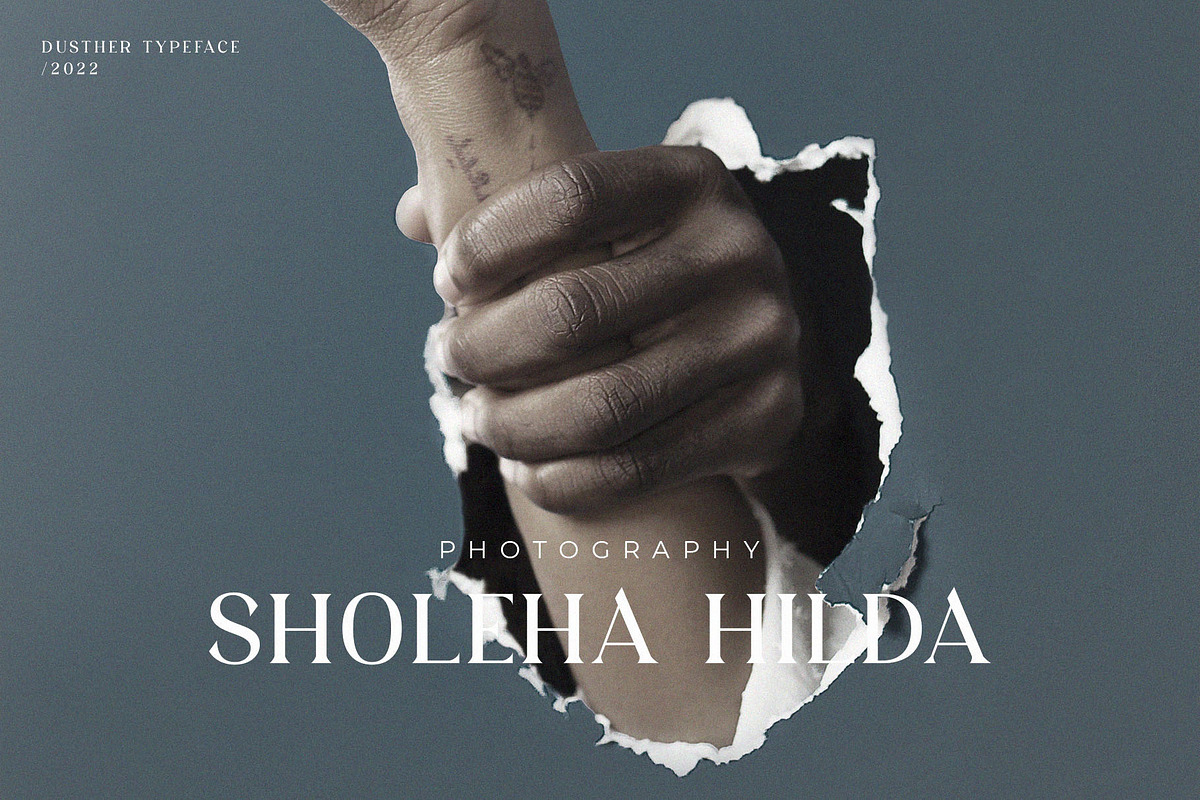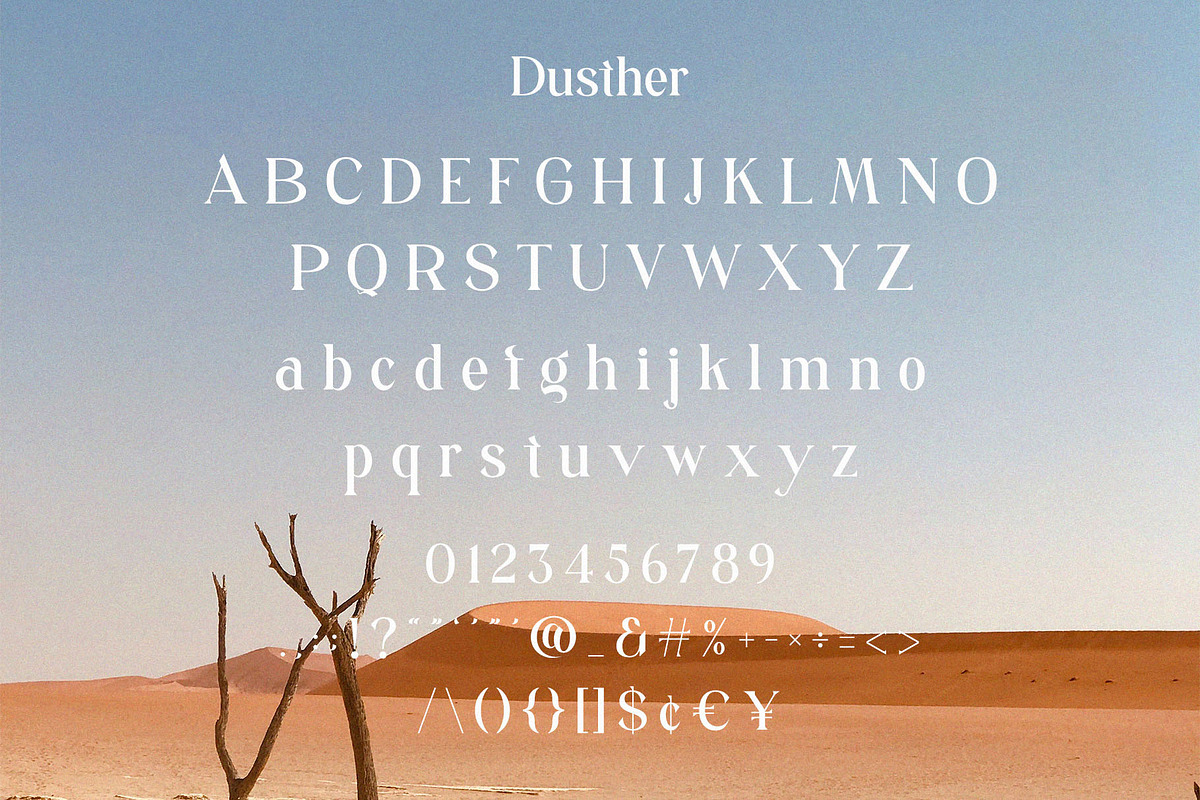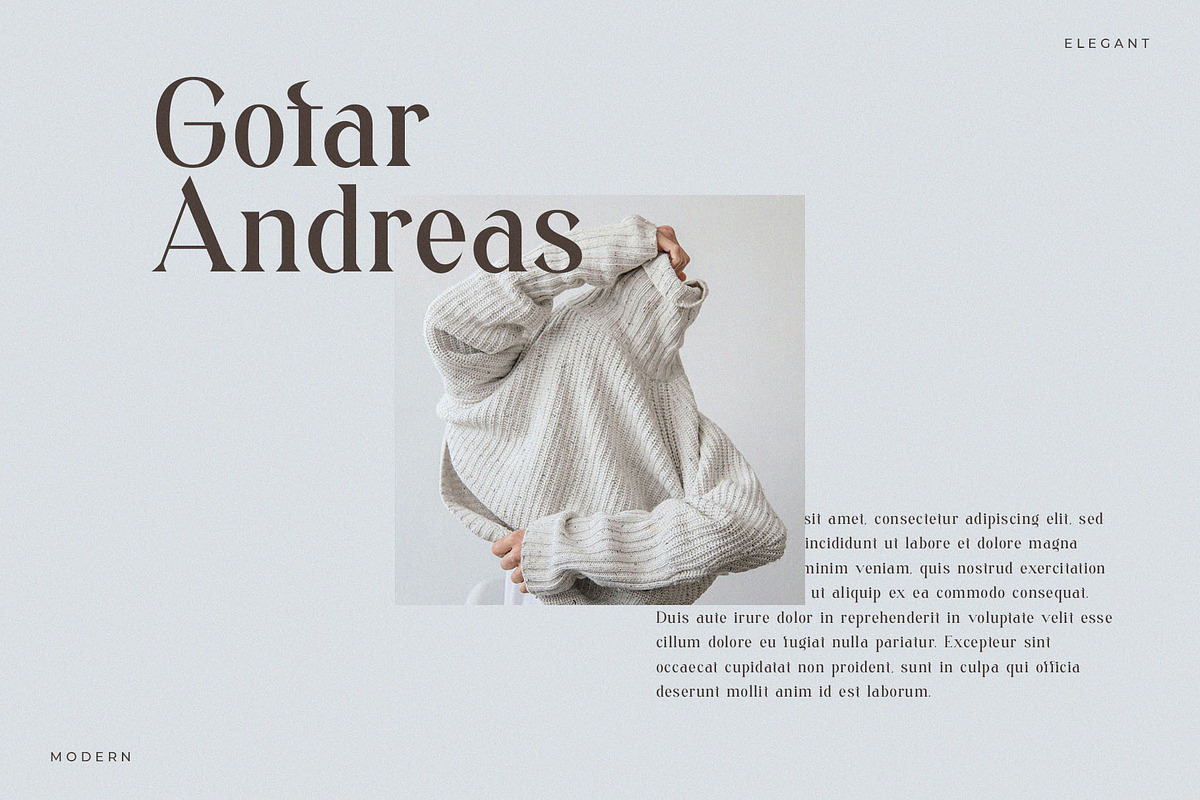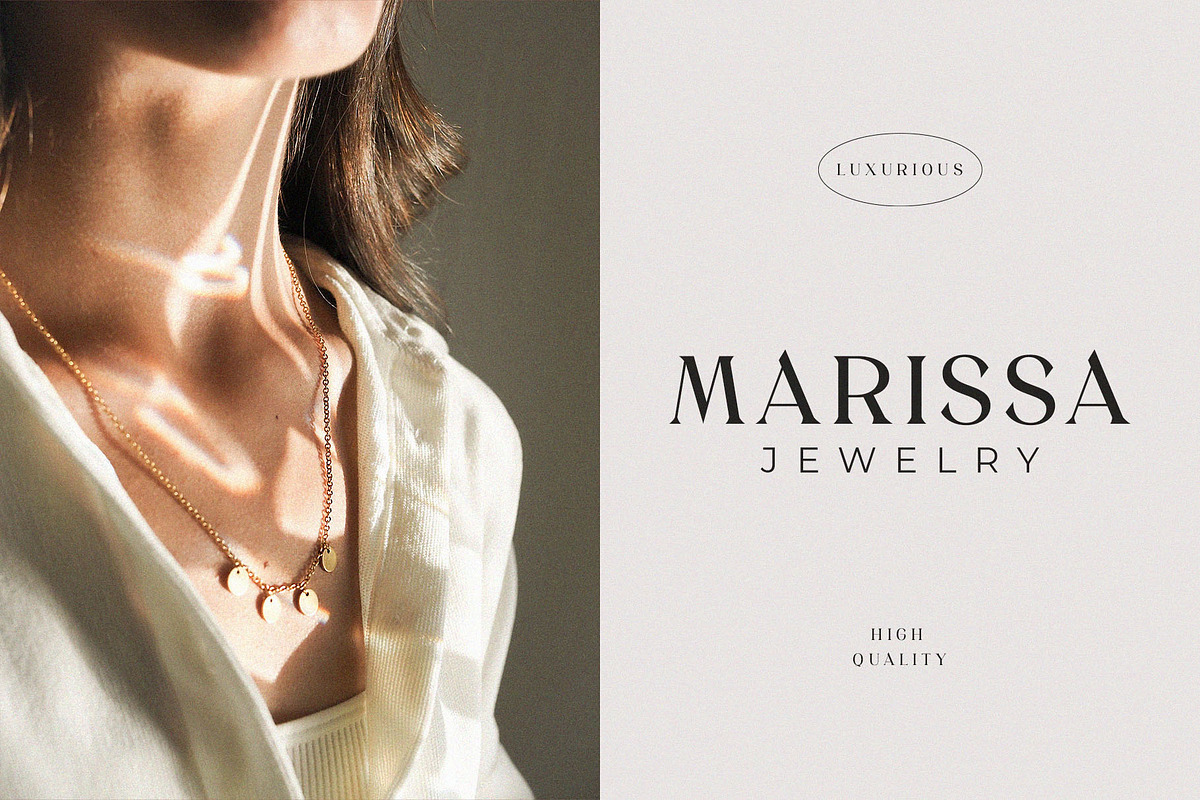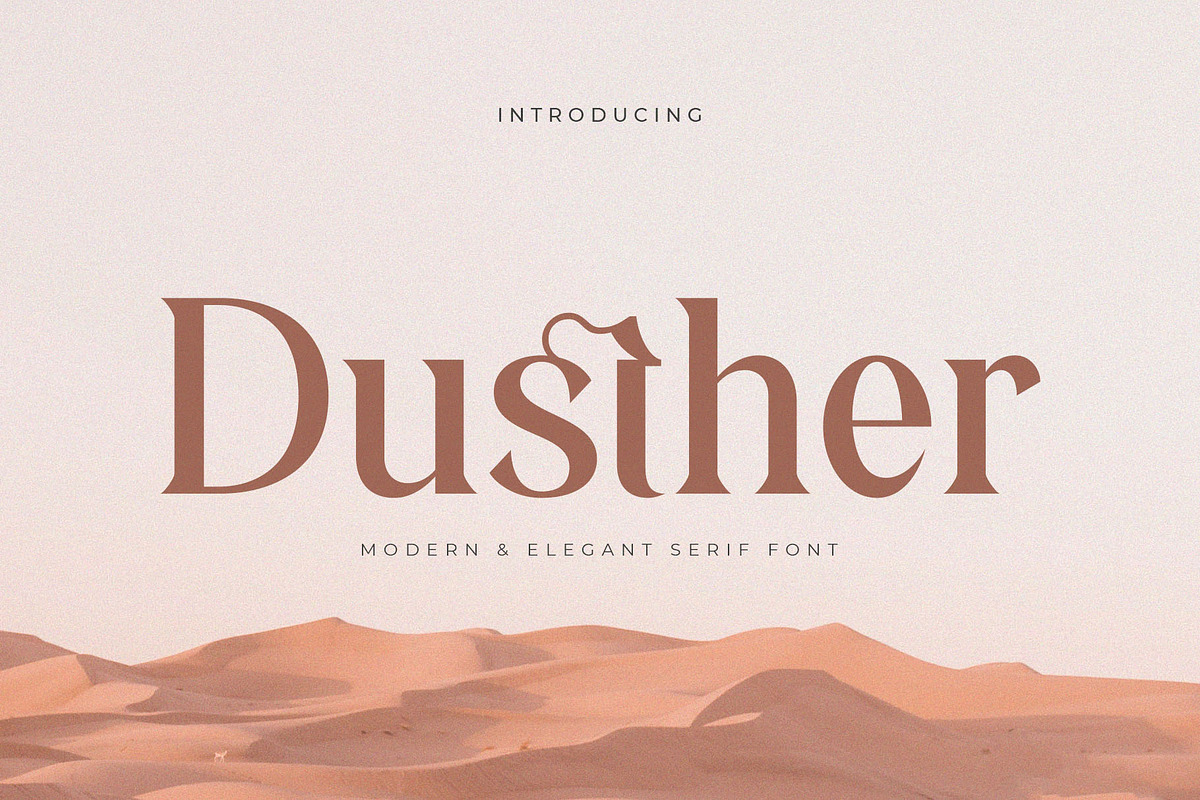
Dusther - Modern Serif Font
Introducing Dusther. Dusther is a modern and elegant typeface, best used as a display for headings, logos, branding, magazines, product packaging and invitations. Dusther come with clean lines and smooth curves give any project an extra touch of class.